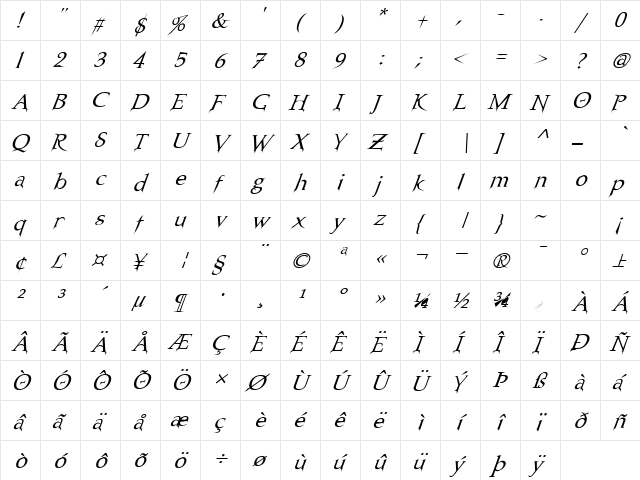
Nosferatu Oblique
Design Context for Nosferatu Typeface
Nosferatu is a composed and adaptable typeface that performs quietly and consistently across a wide range of design contexts. Its italic angle brings a sense of urgency and motion to the letterforms.
Pro Tip: Use Nosferatu for emphasis, pull quotes, and subheadings where its slanted energy can add rhythm to the layout.